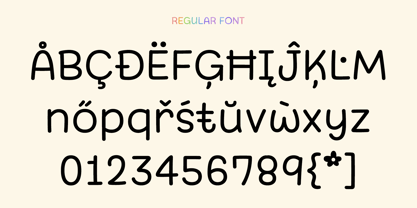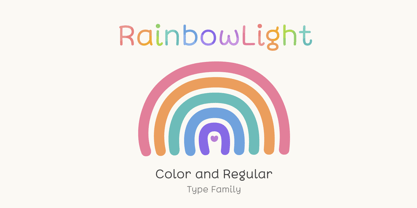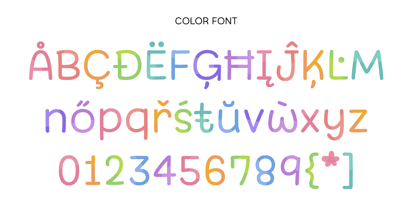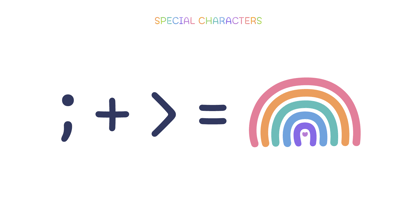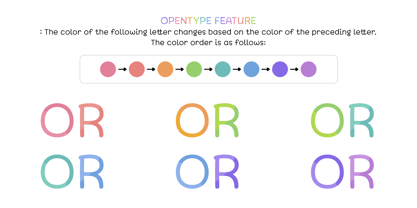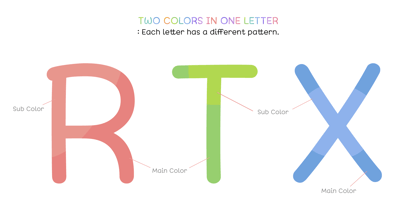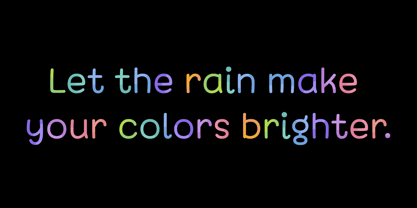
Rainbow Light
by HOHOHtype
The Rainbow Light Font Family was designed by Saebom Lee and published by HOHOHtype. Rainbow Light contains 2 styles and family package options. More about this family
The "Rainbow Light" font is a cute and colorful handwritten font, reminiscent of a rainbow. It comes in two versions: color and regular. The font has the following characteristics: 1. Font Style The letters have natural, subtle variations in thickness and smooth, rounded corners, creating a soft and friendly feel, as if handwritten with a pen. Letters like "q," "k," "x," and "j" are playful and organic, adding a warm, casual feel to your text. 2. Color Font Each letter has two colors, representing a pastel rainbow gradient. The soft blend of red, orange, yellow, green, blue, navy, and purple creates a dreamy and cheerful atmosphere. 3. Impression / Usage This font exudes a cozy and friendly feel, making it ideal for children's books, creative notebooks, infographics, casual brand logos, or design posters. * Special Characters: The fonts include rainbow characters that appear when certain special characters are combined. For example: Typing ;> will produce "rainbow"
Designers: Saebom Lee
Current Foundry: HOHOHtype